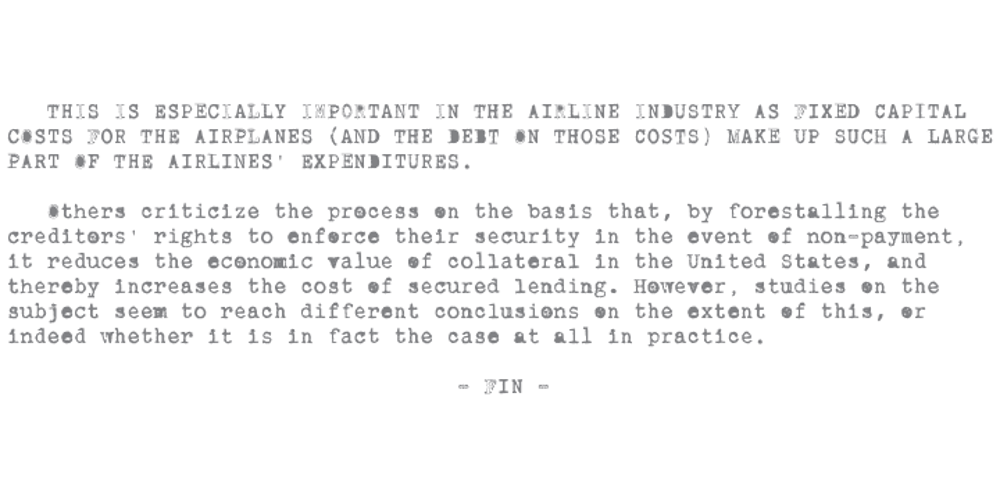
Chapter 11
Chapter 11 font
Chapter 11 Font Family was designed by Patrick Griffin and published by Canada Type. Chapter 11 contains 1 styles and family package options. Chapter 11 is a pseudo-random typewriter font with the ribbon on the fritz. The single font contains four different character sets of varying ranges. If your program supports advanced OpenType features, activate the contextual alternates to see the ghost in the machine while you type. Otherwise, character variations are accessible through any character map or glyph palette, so you can manually mix and match your setting. This font is highly recommended for use in filling out government bailout forms. It will make the whole world believe you actually need it.